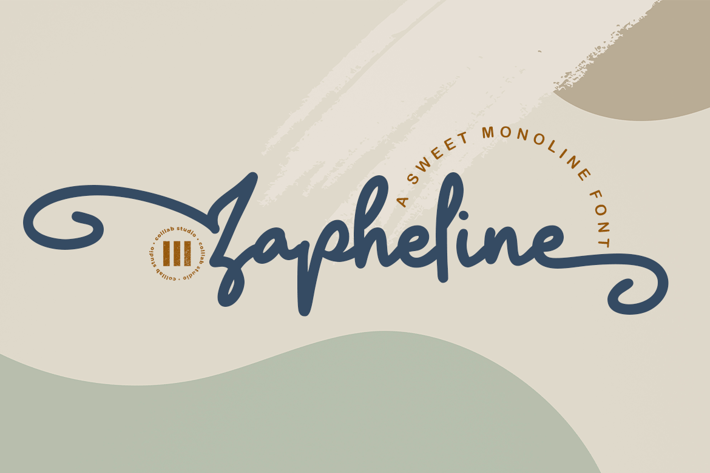
Zapheline - A Sweet Monoline Font
Zapheline is the perfect script font for you to take your project to the next level. It’s a monoline script with a clear style and dramatic movement, which is perfect for many different projects such as logos & branding, wedding designs, social media posts, advertisements & product designs.
If you want your project to stand out and make an impact on your viewers, Zapheline is the right choice for you. It will help you accomplish your dream design in no time!
- 20 + Ligatures & Swashes
- 8 Sets of Stylistic Alternates